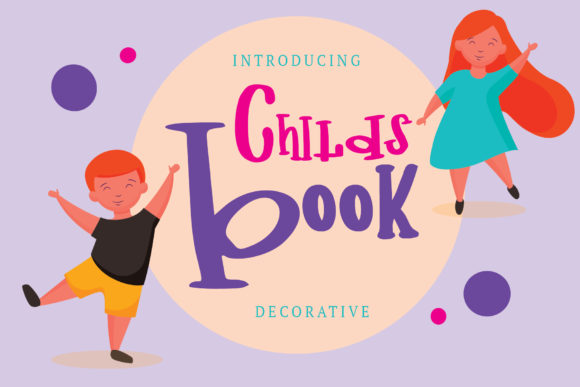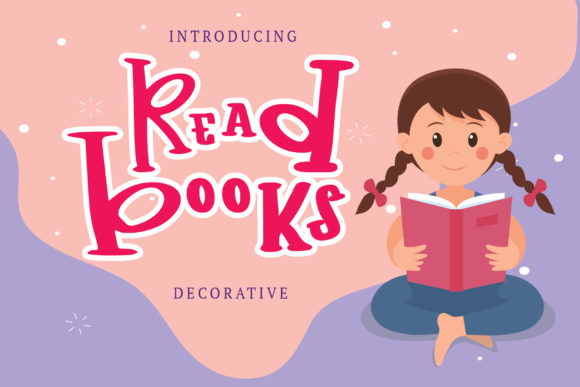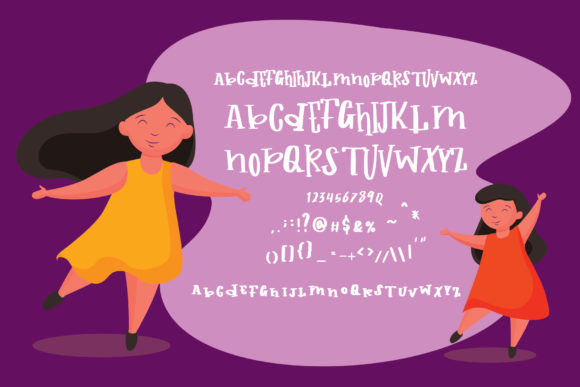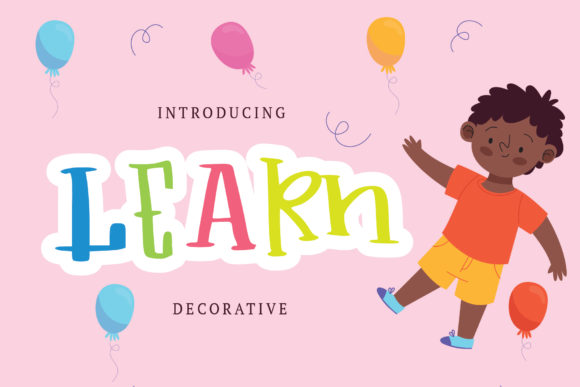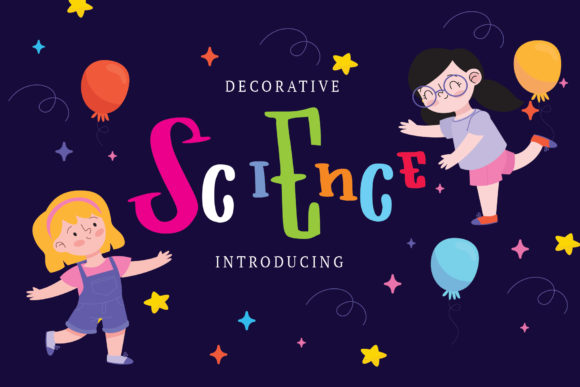
Introduction to Childs Book Font
Childs Book is a cute and incredibly friendly display font.
Playful and a bit quirky, this font is the ideal choice for any school or kids project .